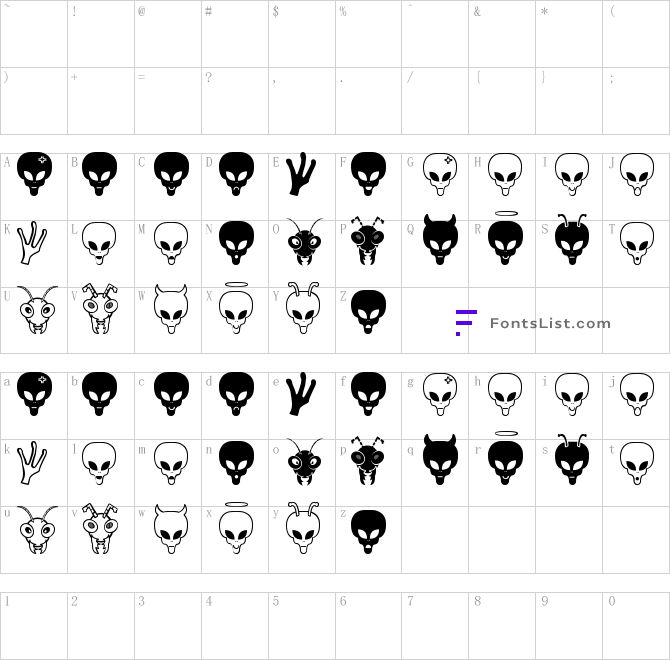
- Font Name:Aliens Bats St
Aliens-Bats-St.ttf is a very beautiful artistic font, Aliens-Bats-St.ttf is widely used in the design and printing of various books and pictures,Aliens-Bats-St.ttf has a strong visual impact,Aliens-Bats-St.ttf is a commonly used font in newspapers, magazines and books, and is used in posters, e-commerce Poster design, store design, logo design, font design and other fields.Aliens-Bats-St.